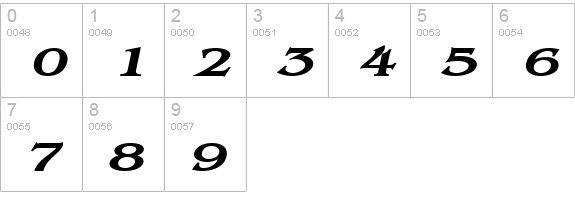
Bangle Extended BoldItalic is a distinctive, extended-width variant in the Bangle typeface family \xE2\x80\x94 well suited to design and typography projects.
Bangle Extended BoldItalic is a striking and modern typeface that exudes style and sophistication. With its bold and italicized design, this font is perfect for making a statement in any design project. The sleek and elegant curves of each letter create a visually appealing look that commands attention. This font is not only visually stunning but also versatile, making it suitable for a wide range of design applications. Whether you're working on a branding project, a poster design, or a website layout, Bangle Extended BoldItalic will bring a touch of elegance and professionalism to your work. The best part is, Bangle Extended BoldItalic is available for free download at FontsMarket.com. So you can elevate your designs without breaking the bank. Don't miss out on this opportunity to enhance your projects with this beautiful and impactful font. Download Bangle Extended BoldItalic today and take your designs to the next level!